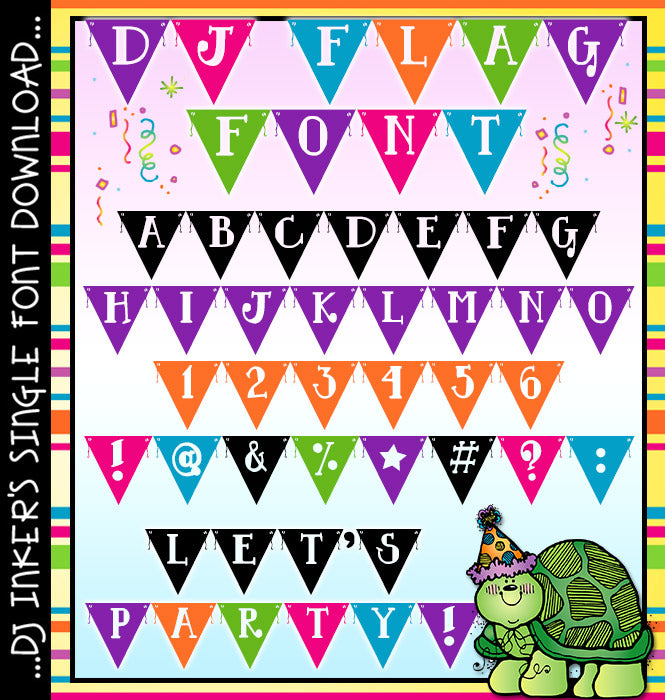
DJ Flag Font Download
Hang-up a smile for the party with our fun DJ Flag font! You can
create cute, customized banners that say exactly what you want them to
say... in any color you want! Great for birthdays, New Years, happy
celebrations, party invitations & decorations.